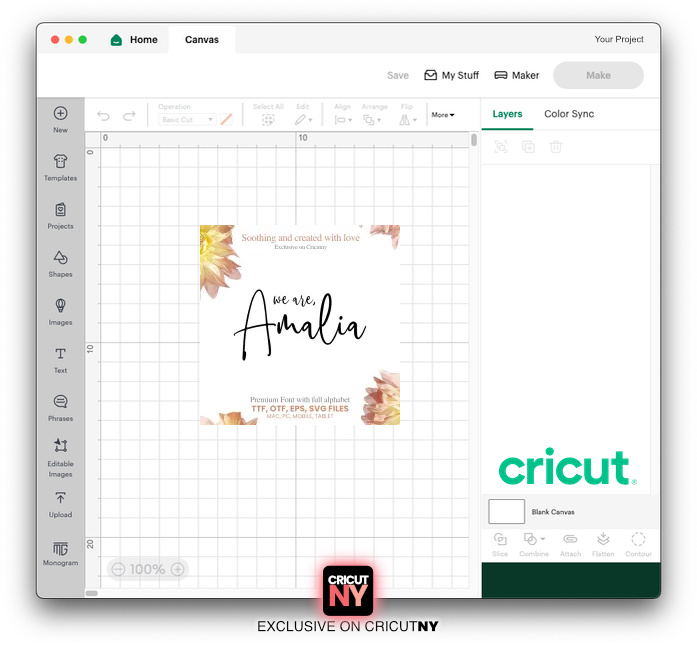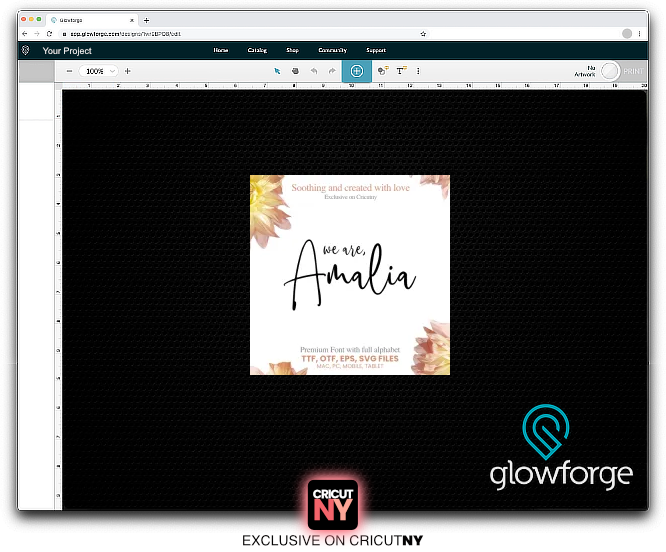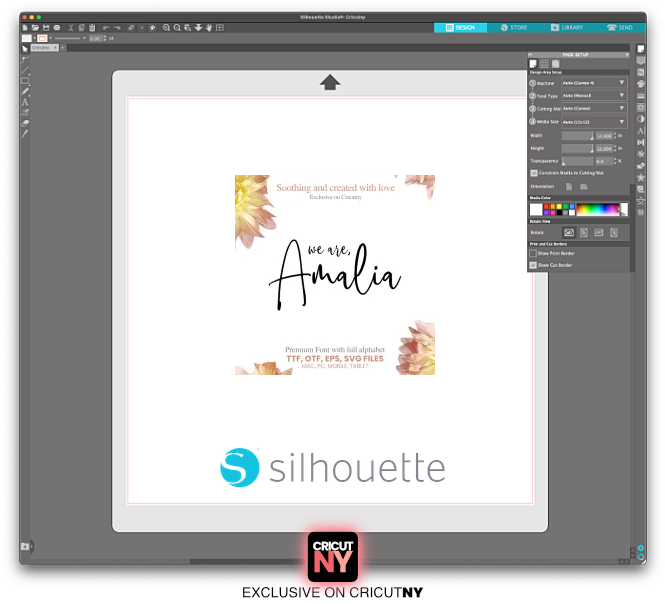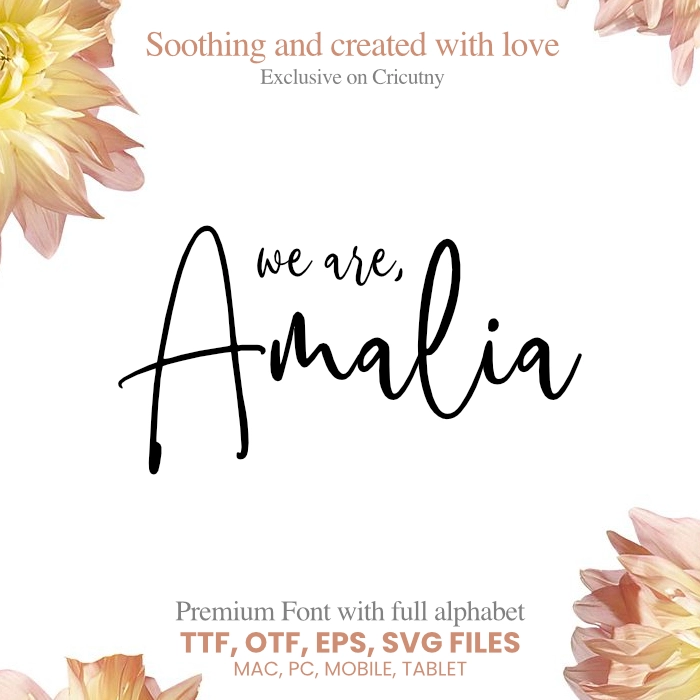
A beautiful signature font
Are you looking for a font looks like real handwriting for your Cricut?
Amalia is a unique Handwriting font. I created this beautiful signature font style to work well on the Cricut design space and the other cutting machine. When you print on Cricut with vinyl, it is better to have a thick cursive font over a thin one.
If you are creating a logo, that font will work perfectly for a brand.
If you create a wedding invitation or a wedding welcome sign, that font might perfectly match your design. Using this font is like you wrote it by hand. It’s exceptionally delicate, feminine and, ultimately, incredibly versatile. Everyone will fall in love with the emotion behind this Handwriting font.
If you speak french, this handwriting font comes with french accents.
Each letter has been created with love and passion for font styling.